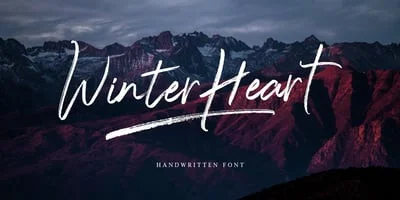
Winter Heart Font
Winter Heart Font is perfect for holiday greeting cards, Christmas wedding invitations, winter romance novels, cozy cabin branding, seasonal cafe menus, holiday boutique signage, and festive social media campaigns. This heartwarming typeface brings romantic winter magic and seasonal charm to any design project celebrating love and togetherness.
What makes Winter Heart Font exciting is its beautiful fusion of winter elegance and romantic warmth that captures the intimate magic of cold season celebrations. The font features graceful letterforms with heart-shaped details and crystalline flourishes that evoke both snowflakes and romantic gestures. Its cozy character creates emotional connections while maintaining sophisticated appeal, making it ideal for brands that celebrate love, family, and seasonal traditions.
The Winter Heart Font family includes regular and bold weights with complementary script variations and seasonal ornamental elements. The character set features romantic ligatures, snowflake accents, heart-shaped alternates, and holiday symbols that enhance the font's festive appeal. Advanced OpenType features provide creative flexibility for international holiday marketing and multilingual seasonal campaigns.
Whether you're designing winter wedding stationery, creating holiday brand identities, or developing seasonal marketing materials, Winter Heart Font provides exceptional warmth and versatility. This enchanting typeface transforms ordinary text into memorable seasonal experiences that celebrate love and winter wonder while establishing strong emotional connections in the competitive holiday and romance marketplace.